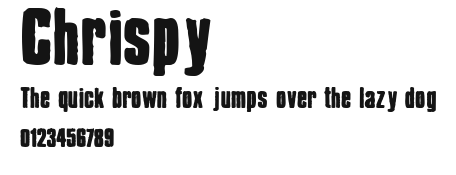
• Font Name: Chrispy
• Full Font Name: Chrispy
Chrispy.ttf is a modern, elegant sans-serif font designed for ultimate readability and visual harmony. Perfect for branding, headlines, web design, and print materials.